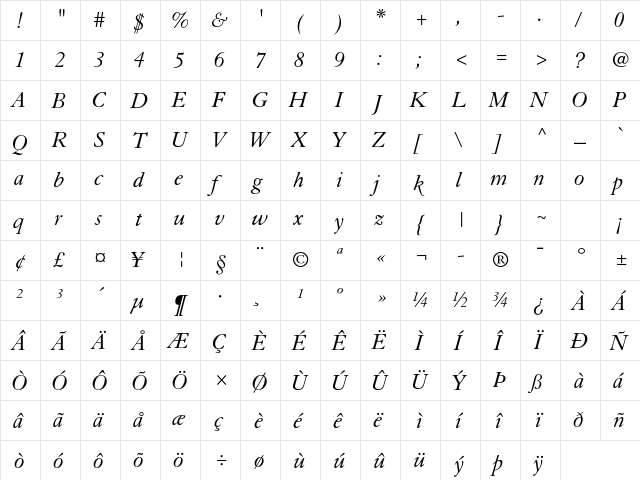
Granjon LT Std Italic Font Preview
| Designer | George W. Jones |
Design Context for Granjon LT Std Typeface
Granjon LT Std offers clean, dependable letterforms without strong stylistic allegiance, making it a practical choice for designers who need flexibility. The dynamic lean of this cut emphasises speed and emphasis in any layout. The delicate stroke weight brings airiness and refinement to layouts.
Pro Tip: Try Granjon LT Std for annotation and caption copy alongside an upright companion — the contrast in angle creates a dynamic but ordered typographic system.